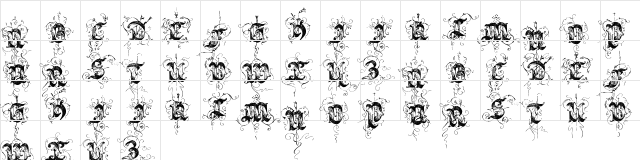
Saraband Initials Regular Free Font
Saraband Initials Regular
Designer: PJL
Design Context for Saraband Initials
Saraband Initials is a composed and adaptable typeface that performs quietly and consistently across a wide range of design contexts.